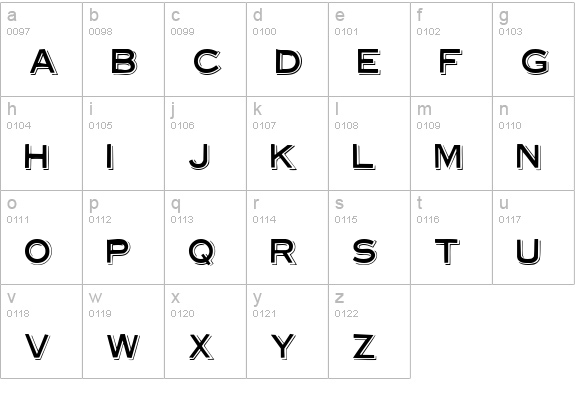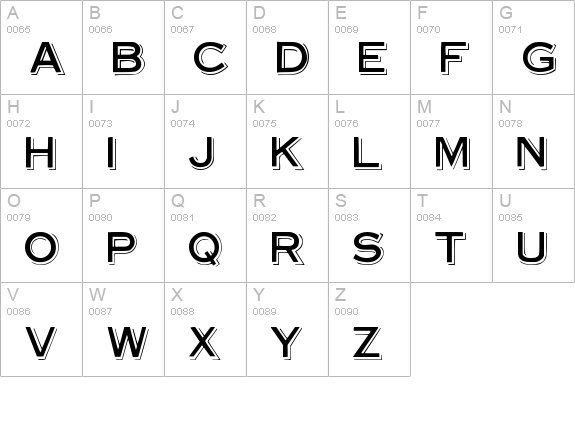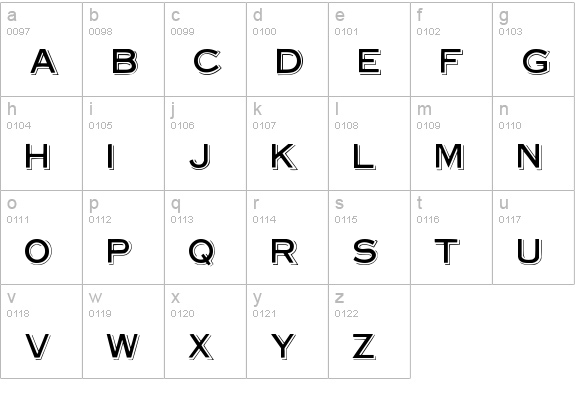
Steelplate Font Details
Steelplate font is a captivating and versatile typeface that combines the strength and elegance of steel with the fluidity of calligraphy. Its bold and distinct letterforms are inspired by the industrial nature of steel plates, showcasing a unique blend of power and grace. With its clean lines and sharp angles, Steelplate font is perfect for creating impactful headlines, logos, and branding materials. Whether in print or digital media, it commands attention and adds a touch of sophistication to any design. One of the most notable features of Steelplate font is its versatility. It can effortlessly adapt to various design styles, from modern and minimalistic to rugged and industrial. This makes it a go-to choice for graphic designers, typographers, and creatives looking for a typeface that can easily complement their vision. What sets Steelplate font apart is that it is not only visually stunning but also free to use. That's right – you can freely download this remarkable font at FontsMarket.com. This means that you can enjoy the benefits of a premium-quality typeface without any cost, making it an ideal choice for projects with budget constraints or for those who simply appreciate a great deal. So whether you're working on a personal project, a client's branding, or simply looking to add a touch of boldness to your designs, Steelplate font is the perfect choice. Its sleek and robust design, combined with its availability as a free download, makes it a must-have for any designer's toolkit. Don't miss out on this opportunity to enhance your creative endeavors with the remarkable Steelplate font.